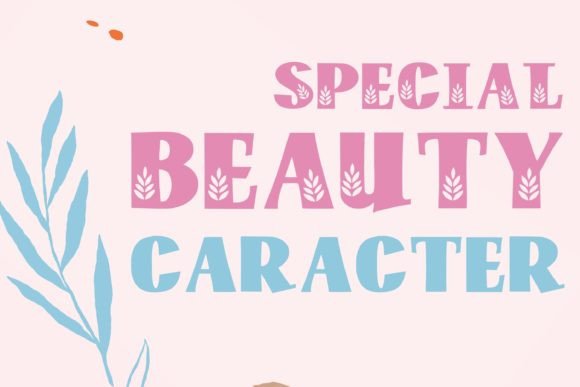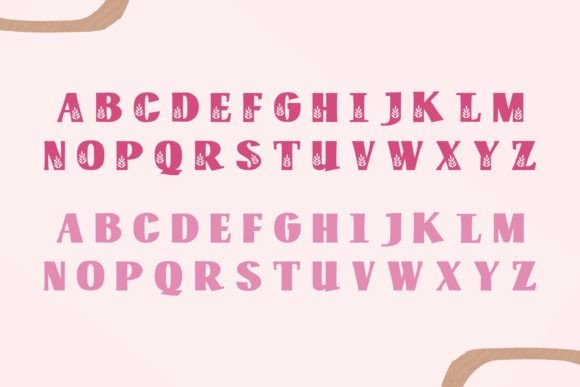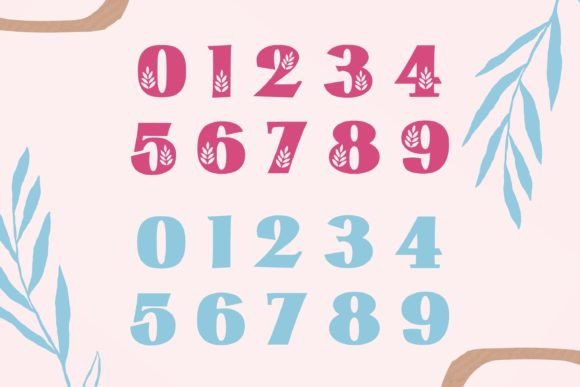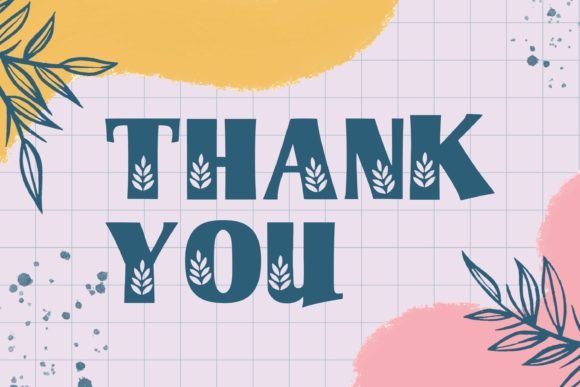
Introducing Blossom Font: The Perfect Choice for Beautiful Designs
Are you a designer, crafter, or DIY enthusiast looking for a font that adds a touch of elegance and beauty to your projects? Look no further than Blossom Font! This stunning decorative font is designed to make your designs stand out, whether you’re creating crafts, digital designs, presentations, or greeting cards.
The Beauty of Blossom Font
Blossom Font is a masterpiece of typography, boasting a unique and aesthetically pleasing design that is sure to capture the attention of your audience. Its delicate and intricate details make it perfect for a wide range of applications, from romantic wedding invitations to creative digital designs.
Blossom Font is an ideal choice for designers and crafters who want to add a personal touch to their projects. Its versatility and beauty make it suitable for various design projects, including:
- Crafts: Use Blossom Font to create beautiful handmade cards, gift tags, and other paper crafts.
- Digital Design: Add a touch of elegance to your digital designs, such as social media graphics, blog headers, and website elements.
- Presentations: Make your presentations more engaging and professional with Blossom Font.
- Greeting Cards: Create stunning greeting cards for special occasions, such as weddings, birthdays, and holidays.
Why Choose Blossom Font?
So, what makes Blossom Font a great choice for designers and crafters? Here are just a few reasons:
- Unique Design: Blossom Font boasts a unique and original design that will make your projects stand out.
- Elegant and Beautiful: The font’s delicate and intricate details add a touch of elegance and beauty to your designs.
- Versatile: Blossom Font is suitable for a wide range of design projects, from digital designs to handmade crafts.
Tips for Using Blossom Font
To get the most out of Blossom Font, here are a few tips:
- Pair with Other Fonts: Experiment with pairing Blossom Font with other fonts to create a unique and interesting design.
- Use in Combination with Images: Combine Blossom Font with beautiful images to create stunning visual designs.
- Experiment with Colors: Try out different colors and color combinations to add depth and interest to your designs.